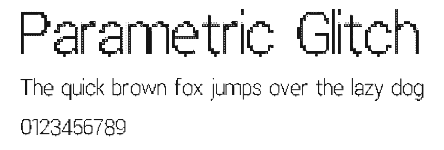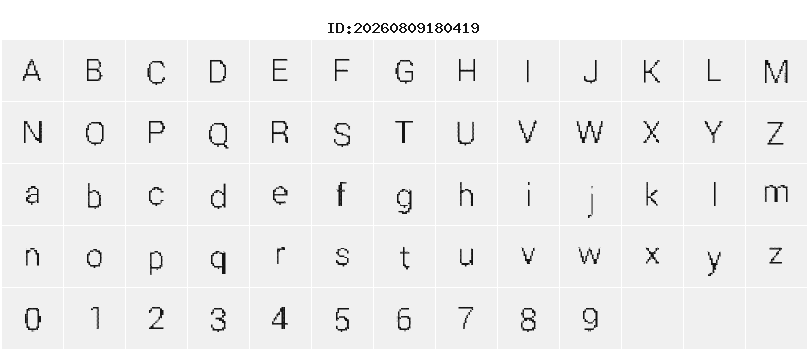
• Font Name: Parametric Glitch
• Designer: Klaus Nielsen
About Parametric Glitch.ttf
Parametric Glitch.ttf is a modern, elegant sans-serif font designed for ultimate readability and visual harmony. Perfect for branding, headlines, web design, and print materials.